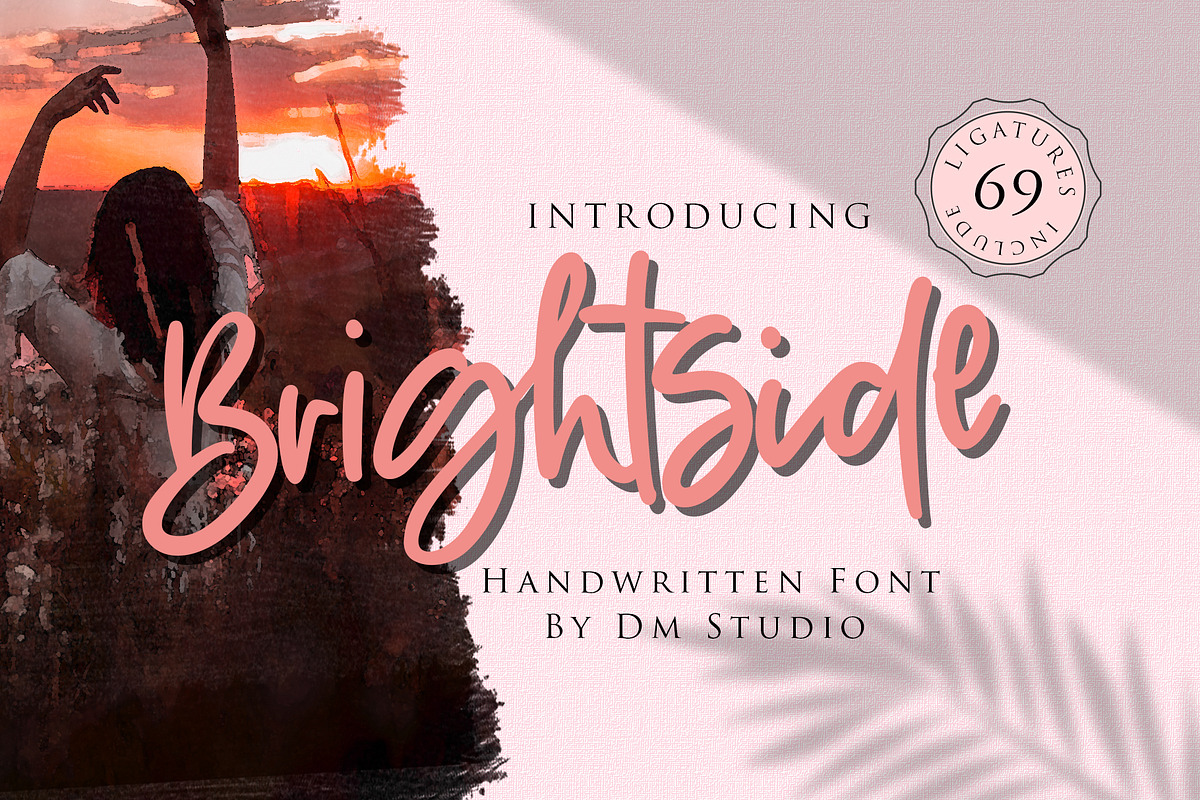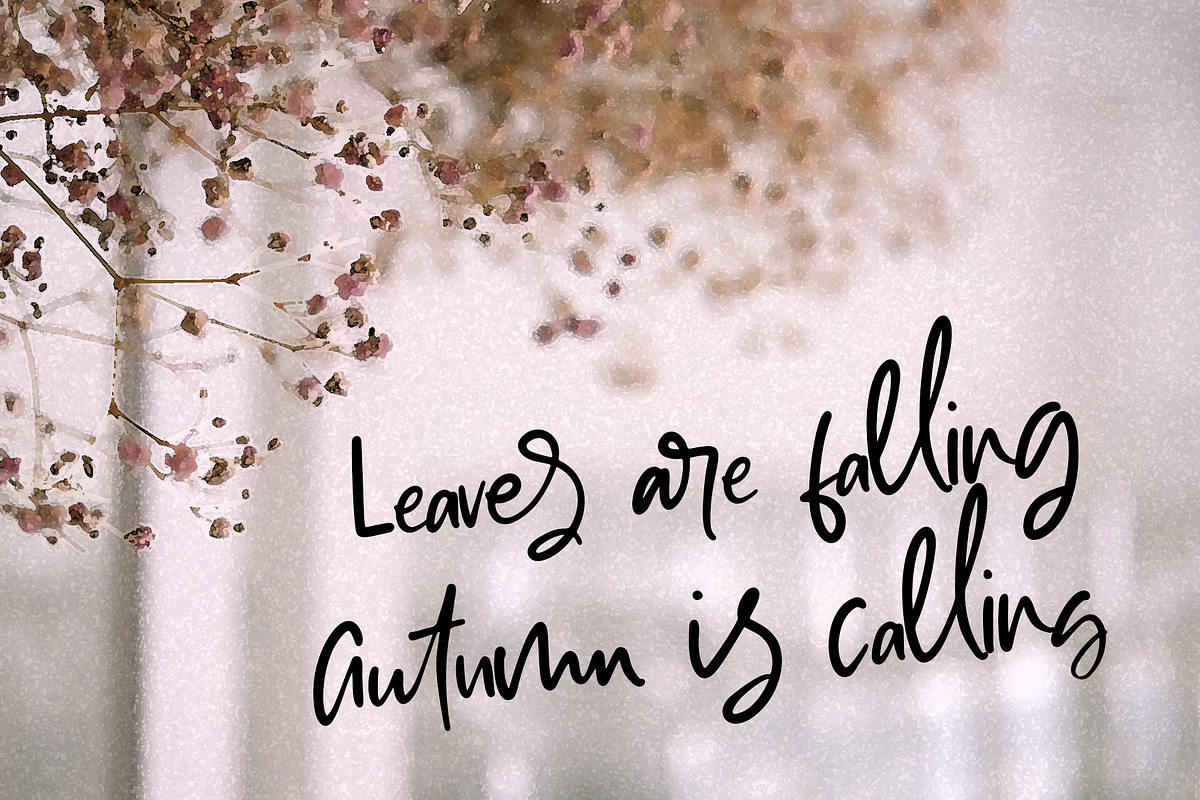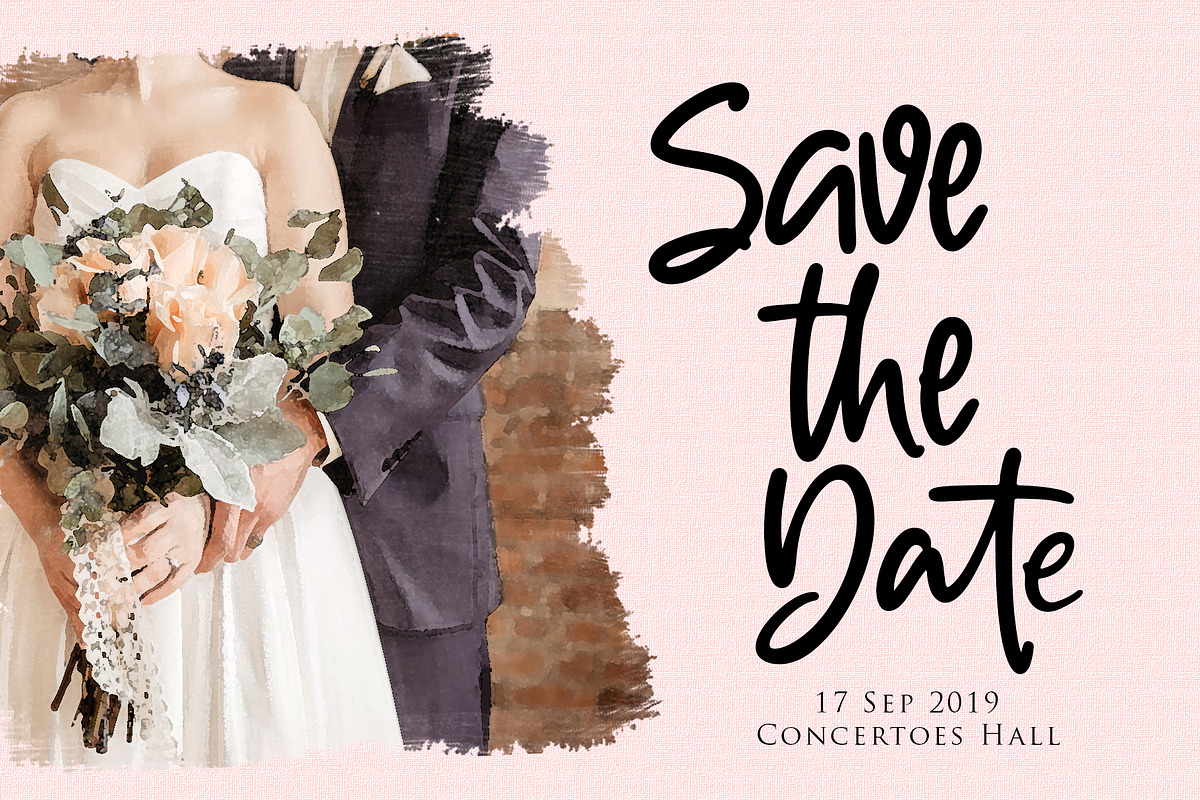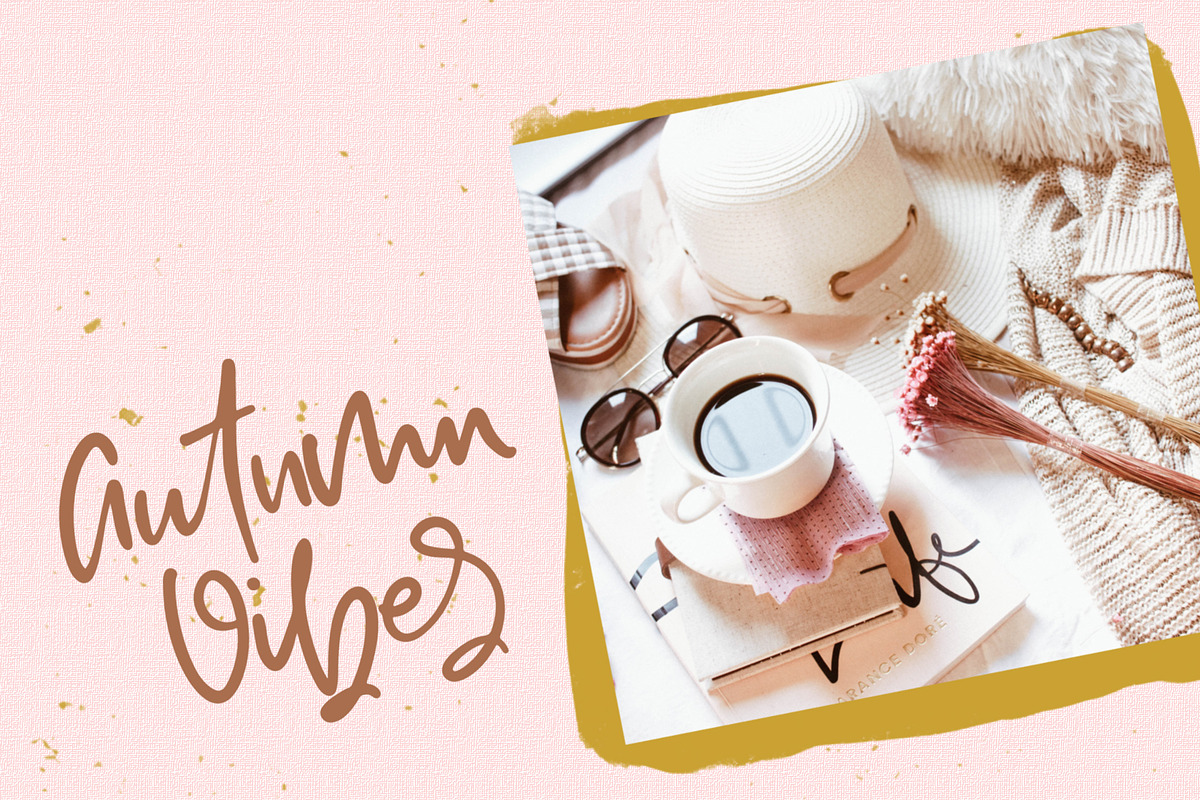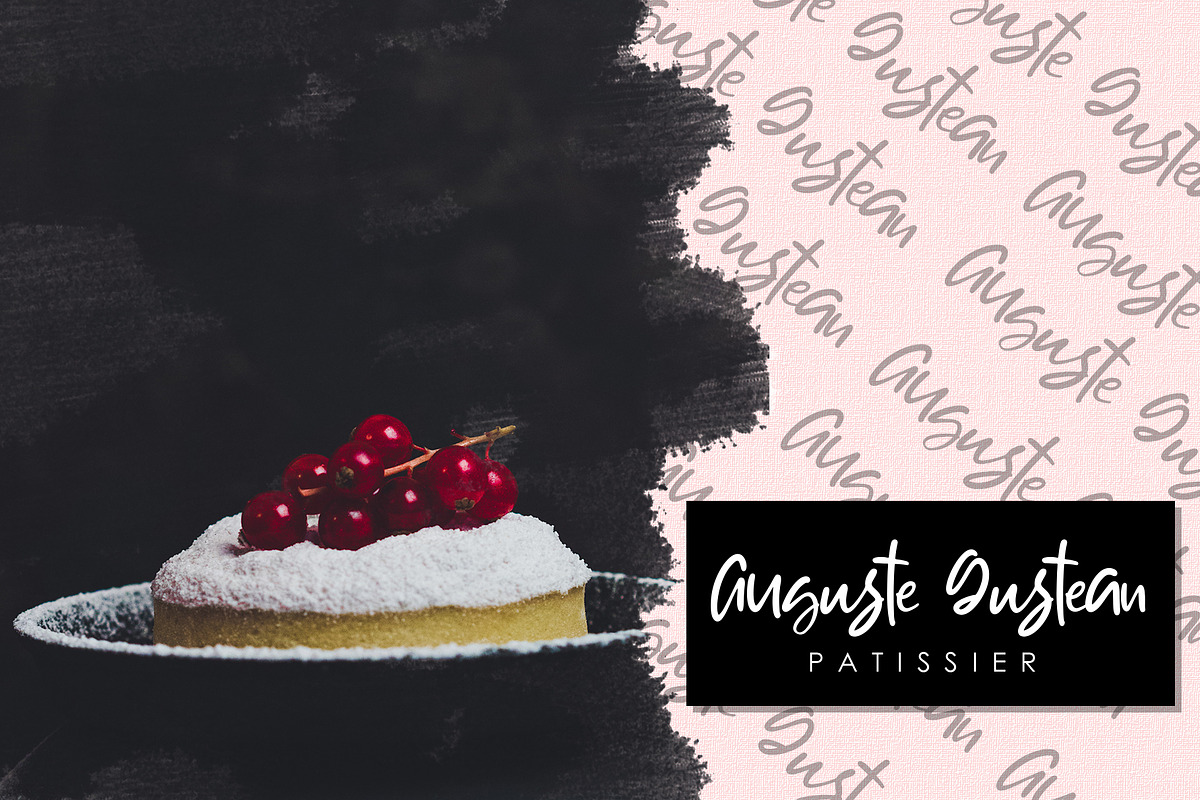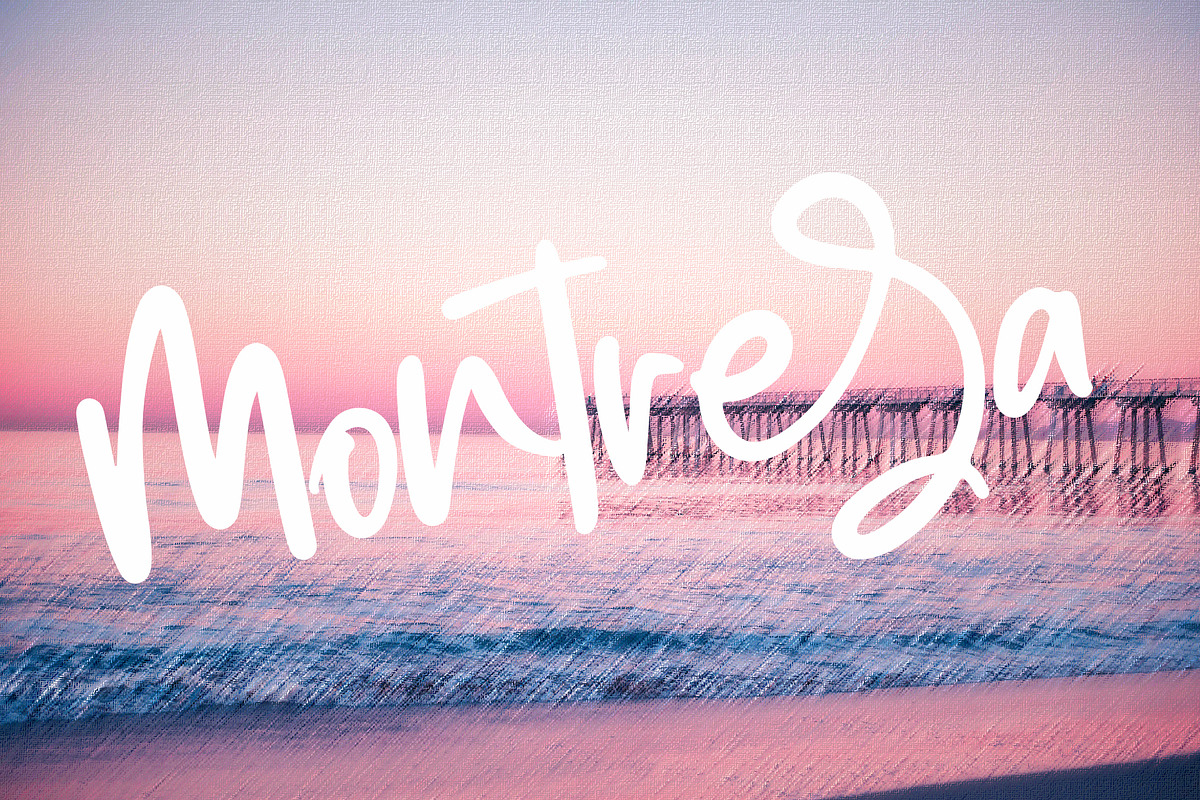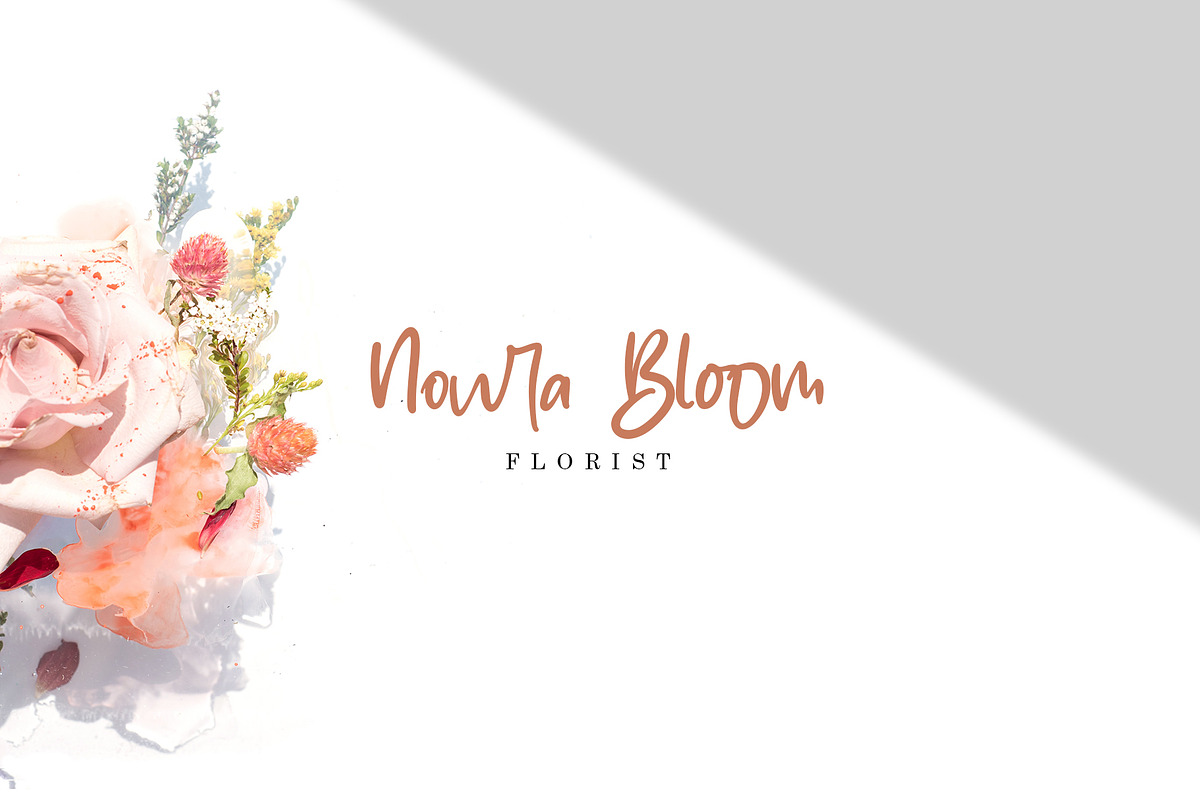
Brightside - Handwritten Brush Font
Introducing, Brightside the handwritten font It's a girly, expressive, and quirky handwritten style that suits for every stylish and modern designs
Brightside - Handwritten Brush Font by Dm Studio fits naturally into Branding, posters, packaging, typography.